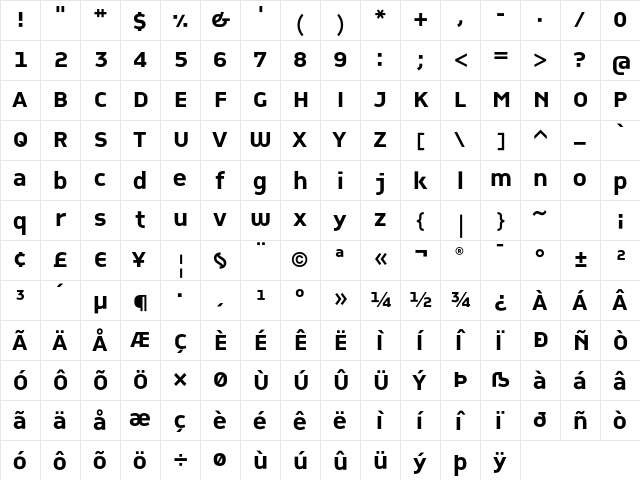
CPCompany Bold
Design Context for CPCompany Typeface
CPCompany offers clean, dependable letterforms without strong stylistic allegiance, making it a practical choice for designers who need flexibility. Its bold stroke weight gives it real presence on the page.
Pro Tip: Pair CPCompany with a font of contrasting weight or personality to build a more expressive typographic hierarchy.